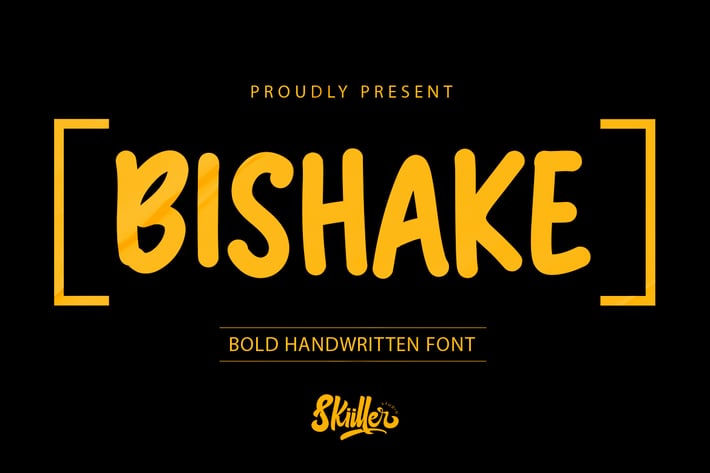
Bishake - Handwritten Font
Bitrose is a unique and elegant handwritten font. It looks beautiful on a variety of designs requiring a personalized style, This font is PUA encoded which means you can access all of the glyphs and swashes with ease!